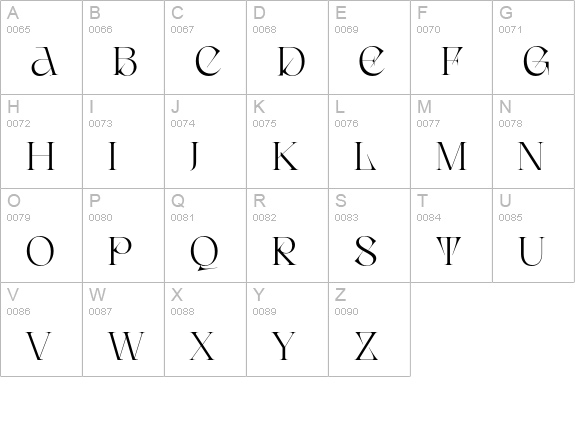
Canteria Font Details
Canteria is a demo font in the Fancy > Feminine category, designed by craftsupplyco. It has been downloaded 75 times and is available for Windows, Mac and Linux.
Canteria font is a modern and elegant typeface that exudes sophistication and style. With its clean lines and graceful curves, Canteria is perfect for a wide range of design projects, from branding to editorial layouts. This versatile font will add a touch of class to any design, making it a popular choice among graphic designers and creatives.